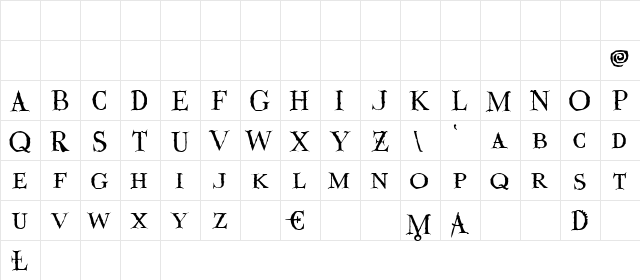
Valdemar Regular
Design Context for Valdemar Typeface
Valdemar is a composed and adaptable typeface that performs quietly and consistently across a wide range of design contexts.